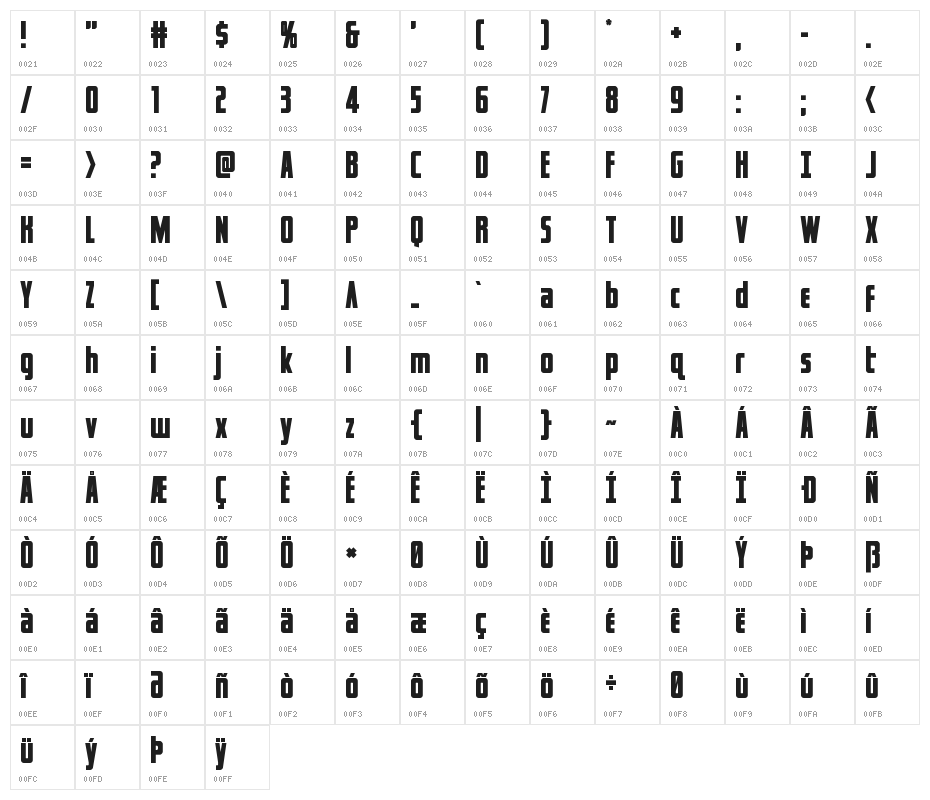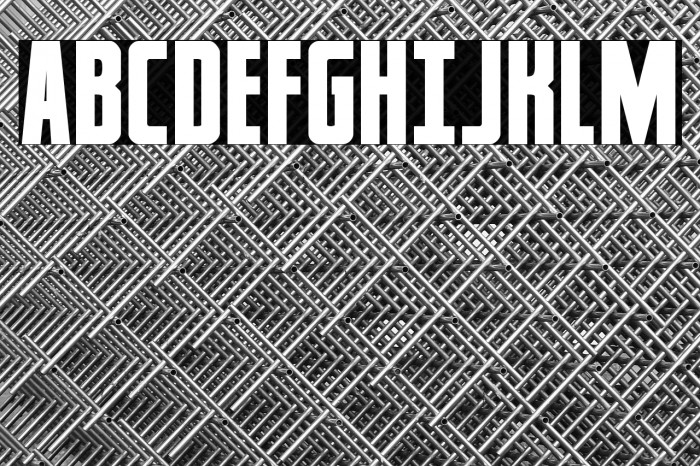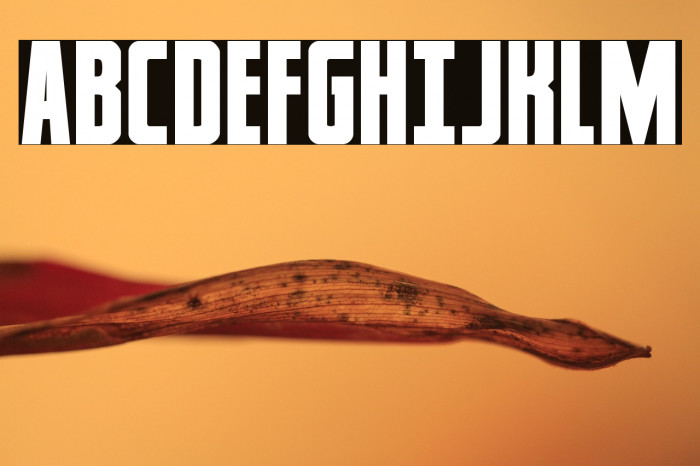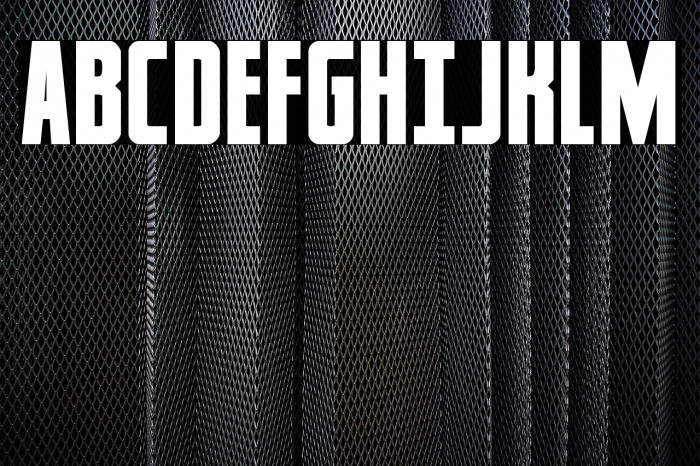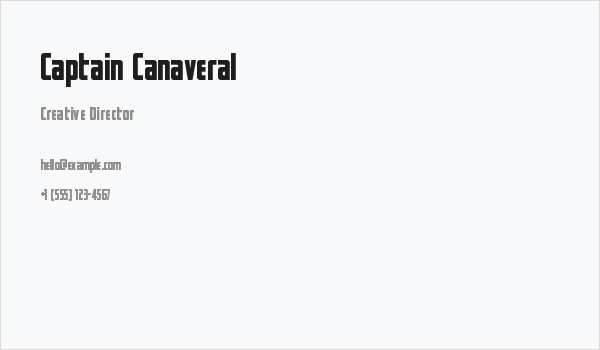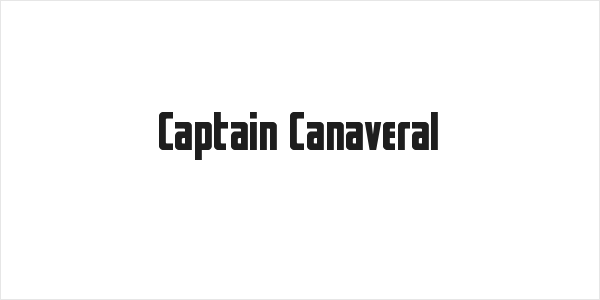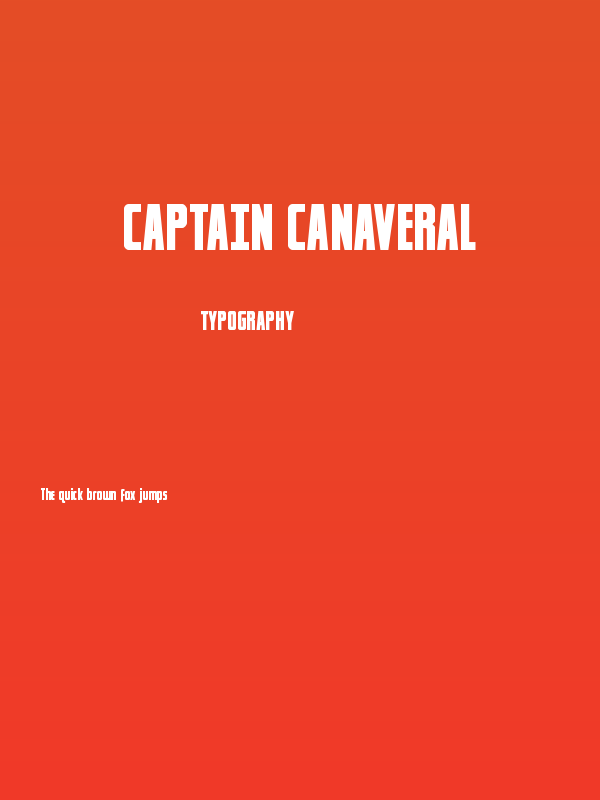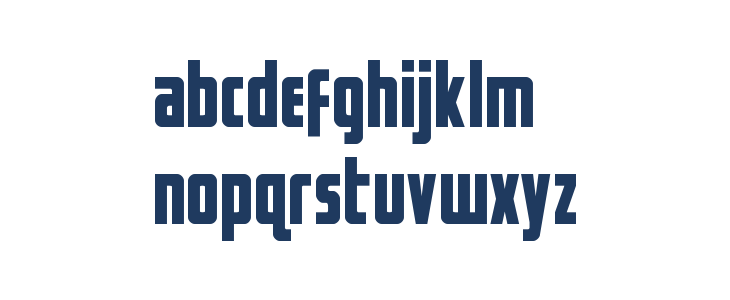
Captain Canaveral Font
Captain Canaveral Description
This font features a bold and impactful design with strong geometric shapes and a modern aesthetic. The uppercase letters are tall and imposing, while the lowercase letters maintain a consistent height, providing a balanced look. The numerals are equally bold, ensuring visibility and clarity. Special characters are designed with the same boldness, making them stand out. The overall style is assertive and confident, suitable for making a statement in any design project.
| Proposed Projects | Ideal for headlines, posters, branding, and any project requiring a strong visual impact. |